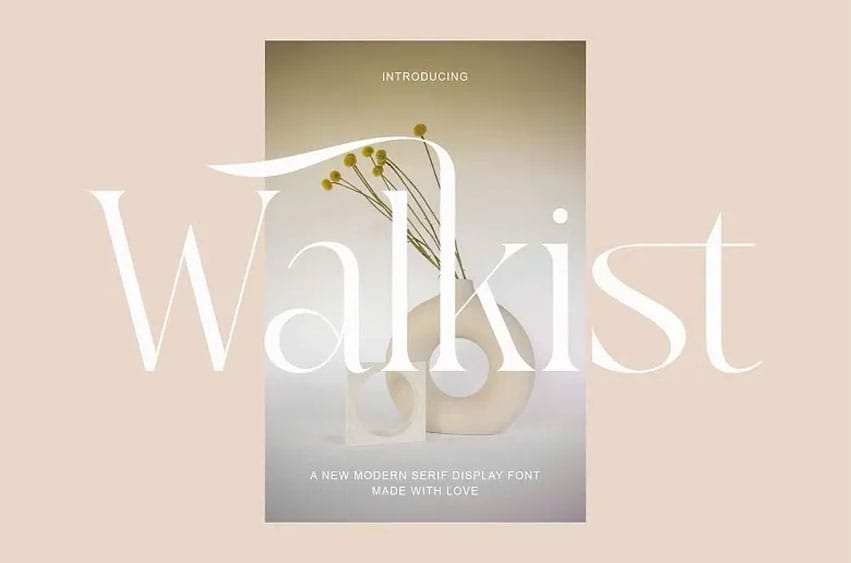
Walkist Font is a clean, pretty, and contemporary serif font. Due to its elegant and sleek look, Walkist will add a touch of sophistication, elegance, and simplicity to your projects including websites, logos, branding, social media posts, wedding invitations, magazines, and many more!
Walkist has beautiful and elegant capital letters from A to Z and has other alternative letters and special ligature letters making Walkist a versatile font for your projects and works.